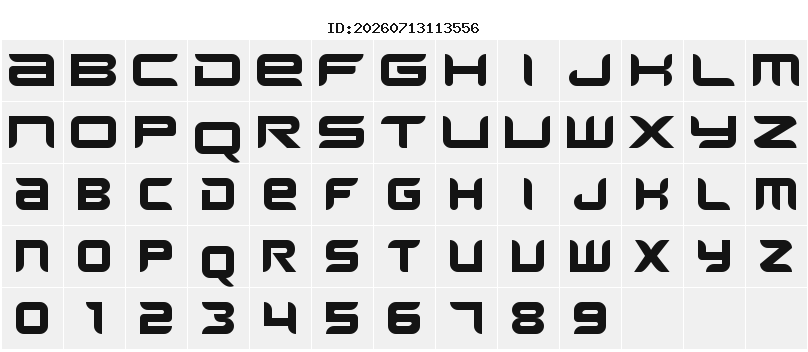
• Font Name: Radeon
• Full Font Name: Radeon Regular
• Designer: Daniel Lyons
• Description: ‚ÄúATI Radeon Xpress‚Äù was built with FontStruct
About Radeon.ttf
Radeon.ttf is a modern, elegant sans-serif font designed for ultimate readability and visual harmony. Perfect for branding, headlines, web design, and print materials.